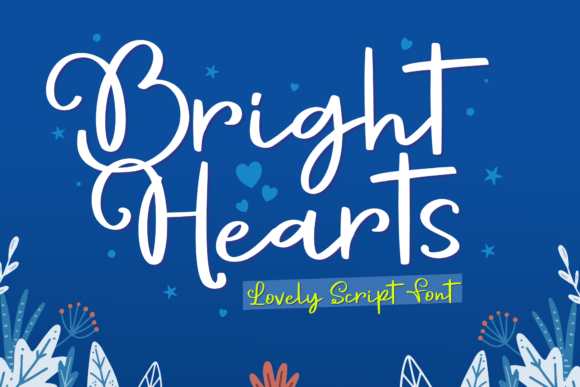
Prepare yourself to be entranced by the Bright Hearts Font, a captivating script font that will ignite your creativity and transform your designs into captivating masterpieces. This exquisite font, crafted by the talented Holydie Studio, holds within it the power to evoke the warmth and cheer of the Christmas season, making it the perfect choice for creating enchanting Christmas bags that spread joy wherever they go.
With its elegant swirls and playful curves, the Bright Hearts Font possesses an irresistible charm that draws the eye and captures the imagination. Each letter is a work of art, adorned with intricate details that tell a story of love, laughter, and the magic of the holiday season. Whether you're designing gift tags, cards, or personalized ornaments, this font will add a touch of enchantment to all your creations.
Imagine the delight of your loved ones as they receive a Christmas bag adorned with their names, written in the beautiful Bright Hearts Font. The font's cheerful personality is sure to warm their hearts and bring a smile to their faces. And with its versatility, the Bright Hearts Font is not limited to Christmas alone; it's perfect for adding a touch of whimsy and charm to any project, from invitations and posters to website designs and social media graphics.